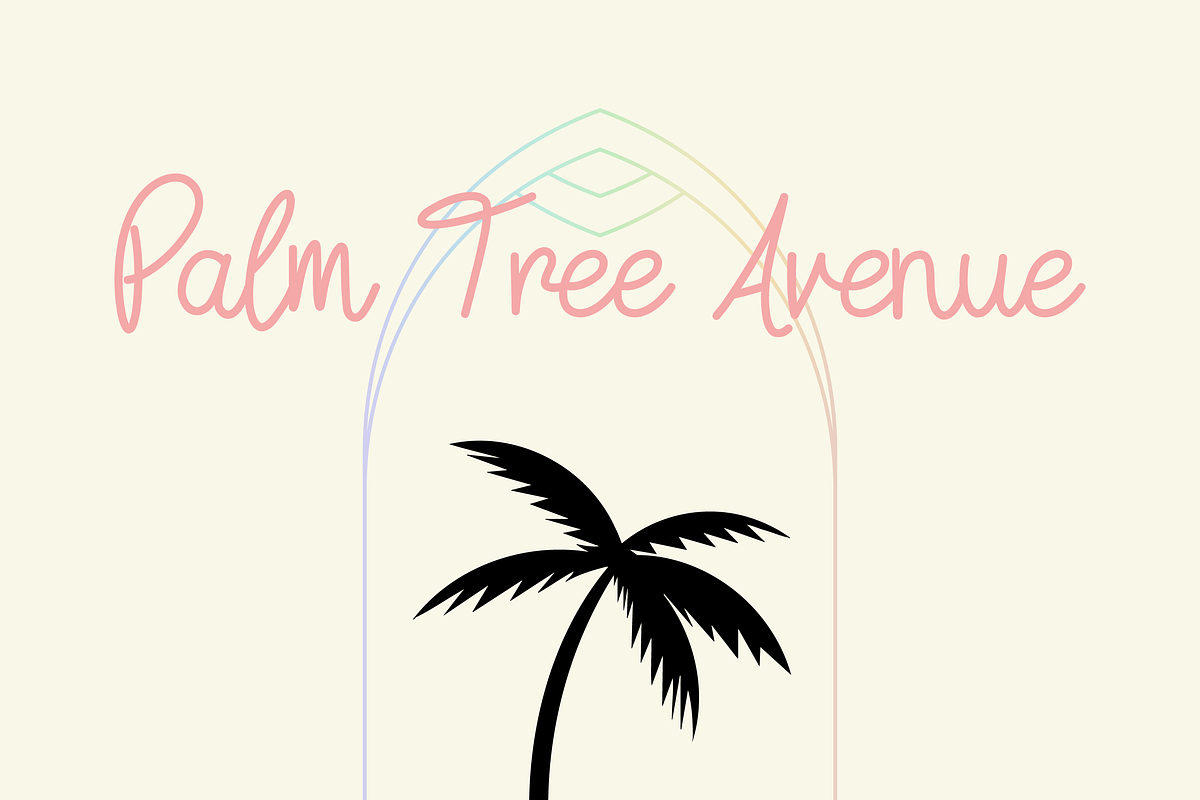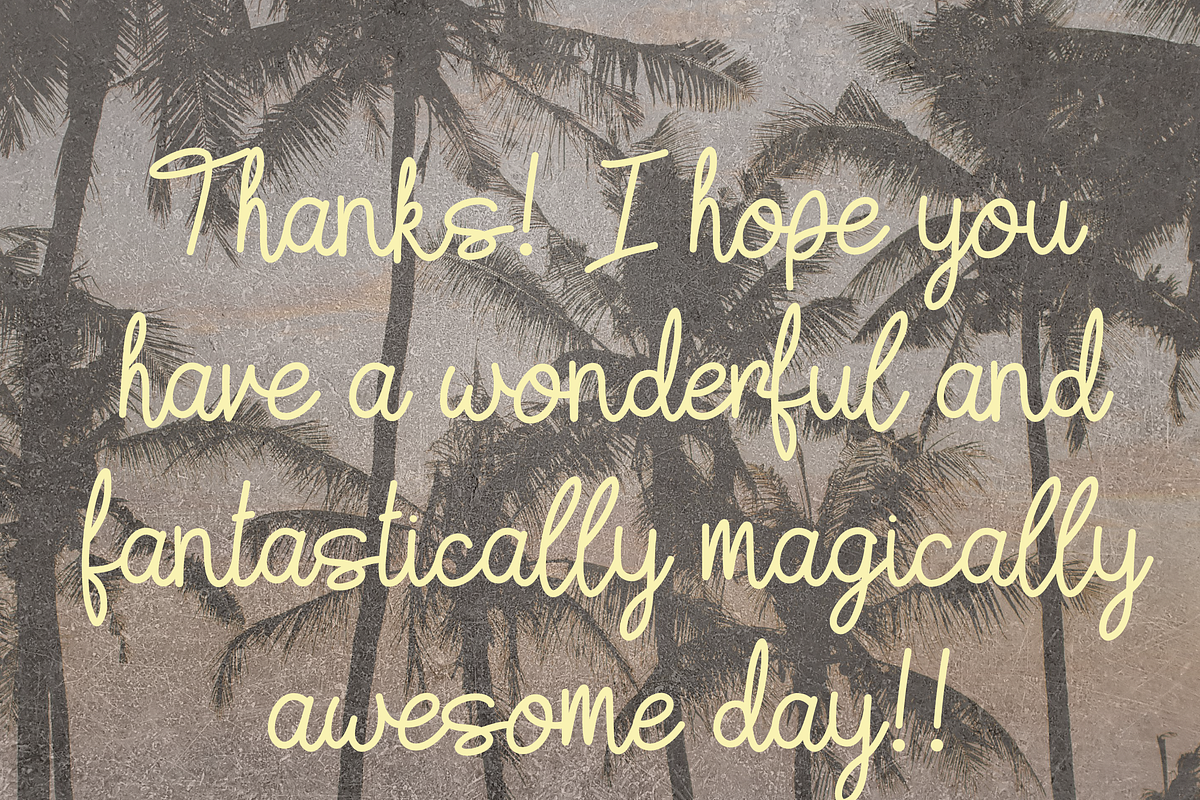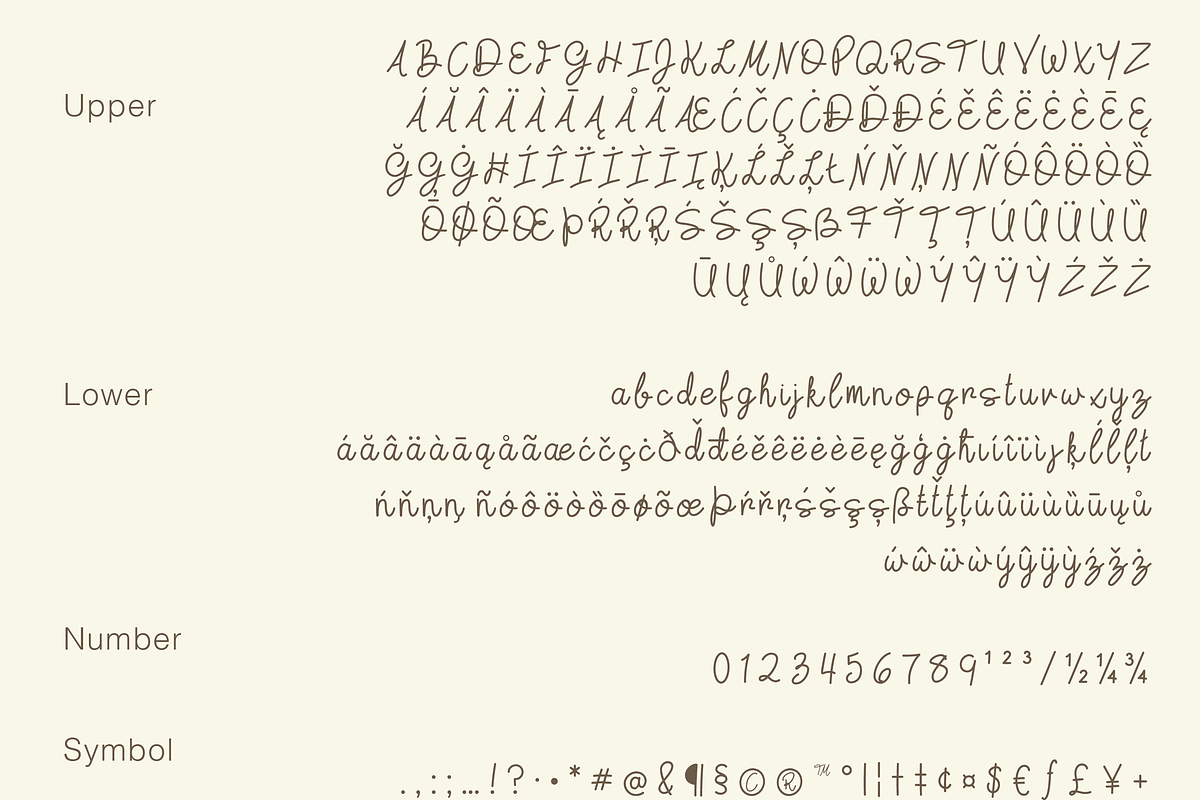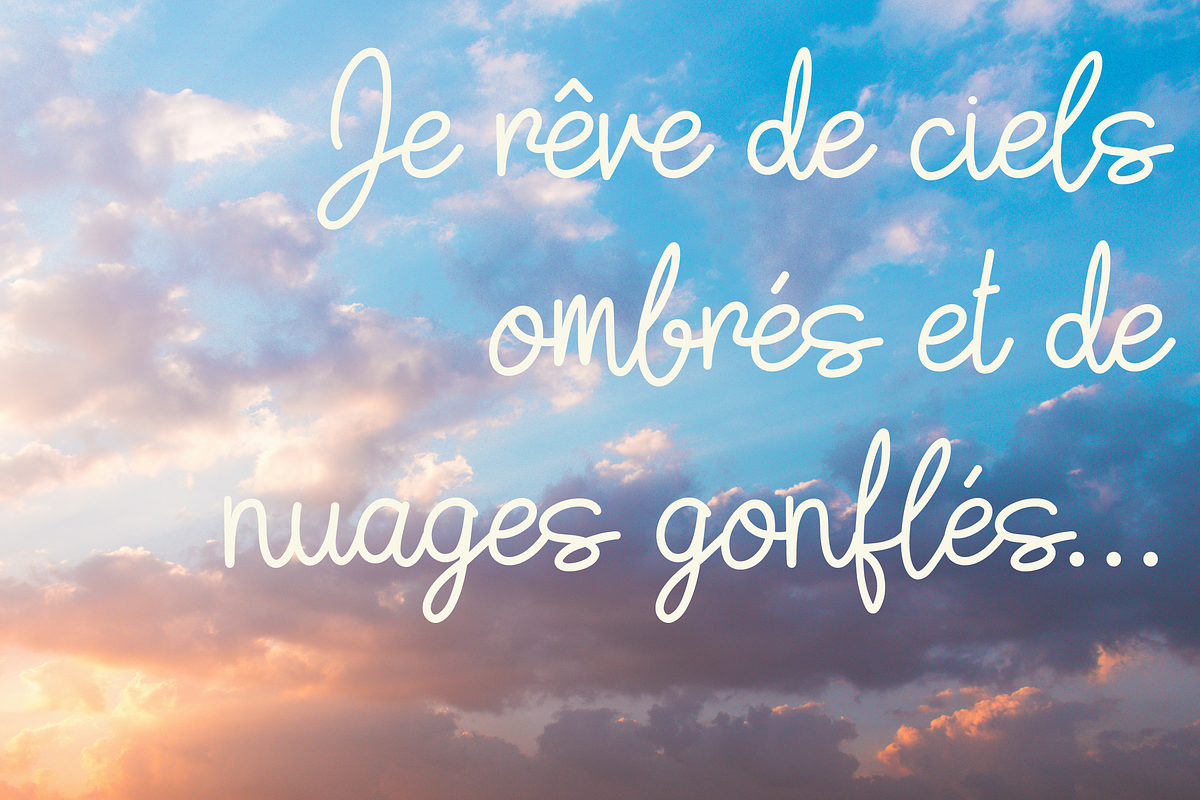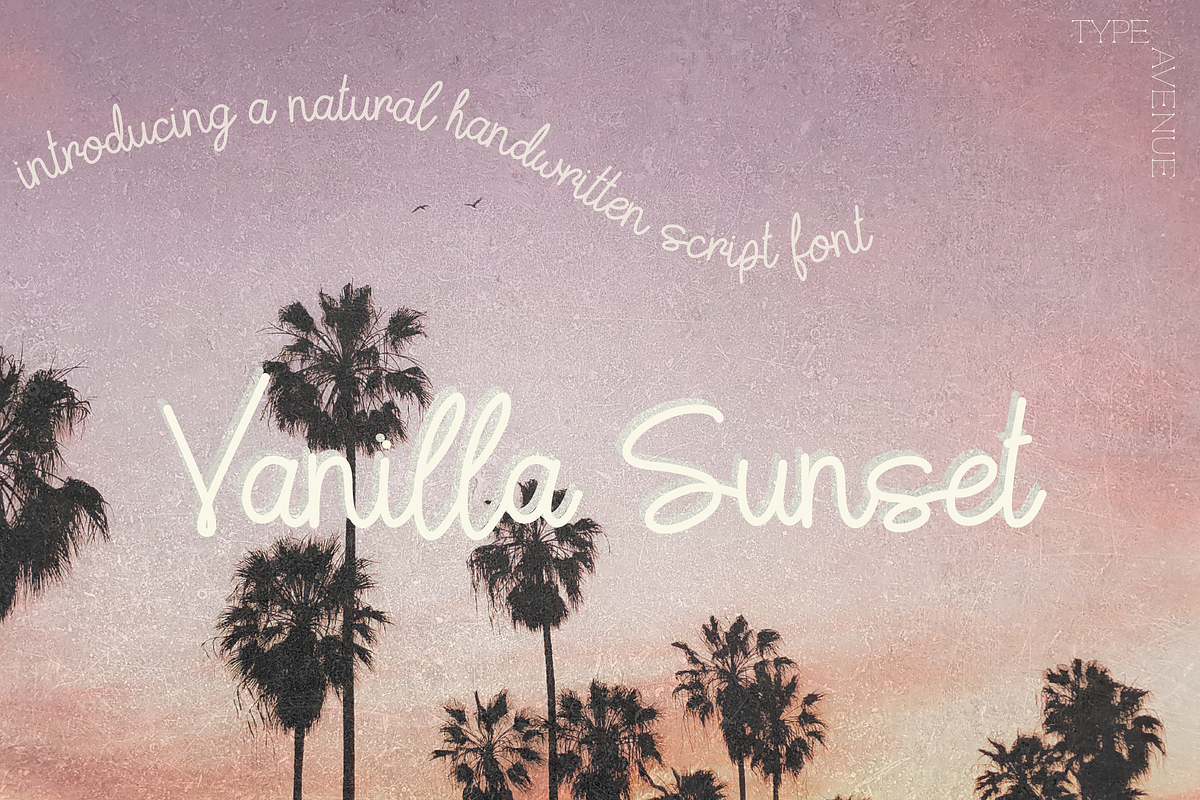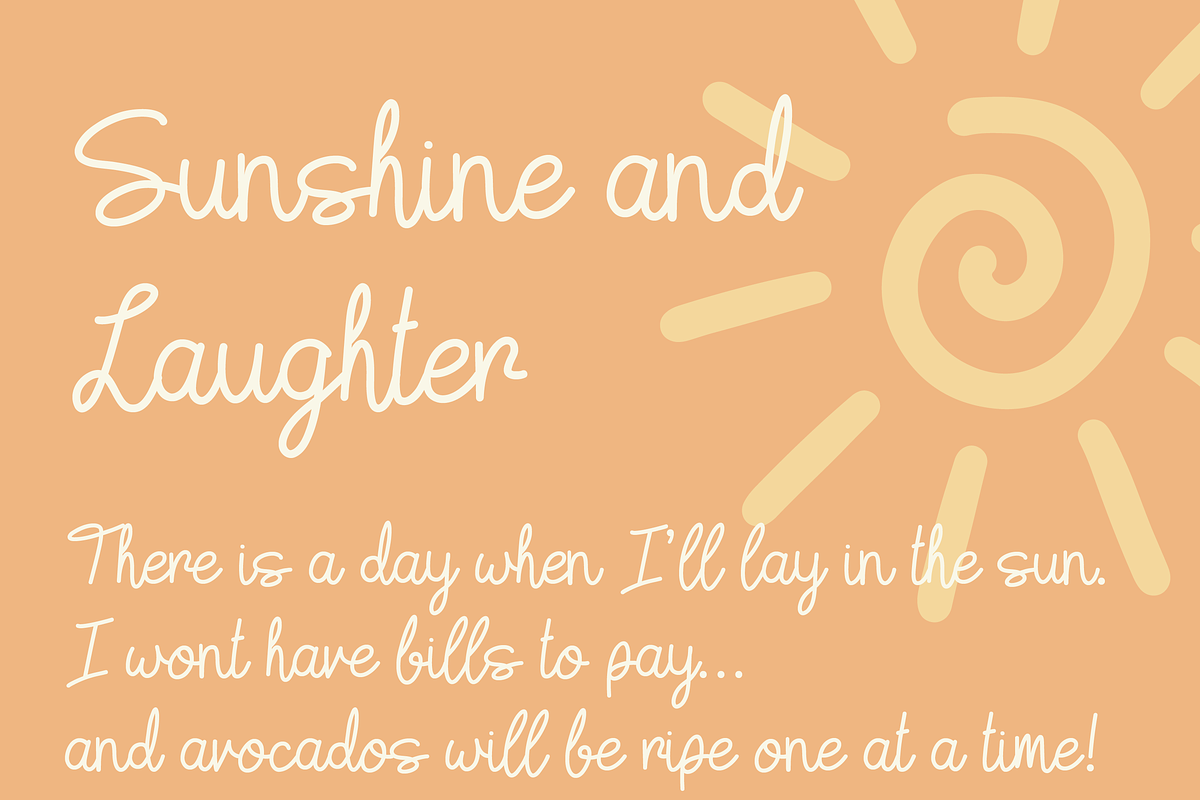
Vanilla Sunset Font
Vanilla Sunset is a handwritten script font. This is natural cursive font that mimics the imperfect nature, unevenness, and slight slant that only comes from handwriting. It’s perfect for soft and feminine compositions along with beach and soft pastel themes.
Great for branding, crafting, display font, wall art, handcrafted, hand written, handwritten, digital planner, and so much more.